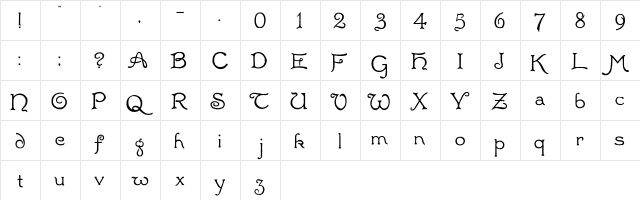
Radaern Normal Font Preview
Radaern Normal
Design Context for Radaern Typeface
Radaern is a composed and adaptable typeface that performs quietly and consistently across a wide range of design contexts.